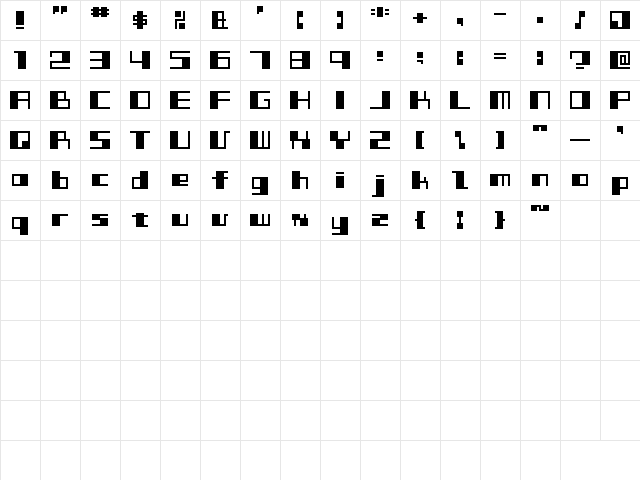
Pop TuneBitA12 Regular
Design Context for Pop TuneBitA12 Typeface
Pop TuneBitA12 takes a measured approach to typography — its balanced proportions and neutral character make it a reliable workhorse for both digital and print work.